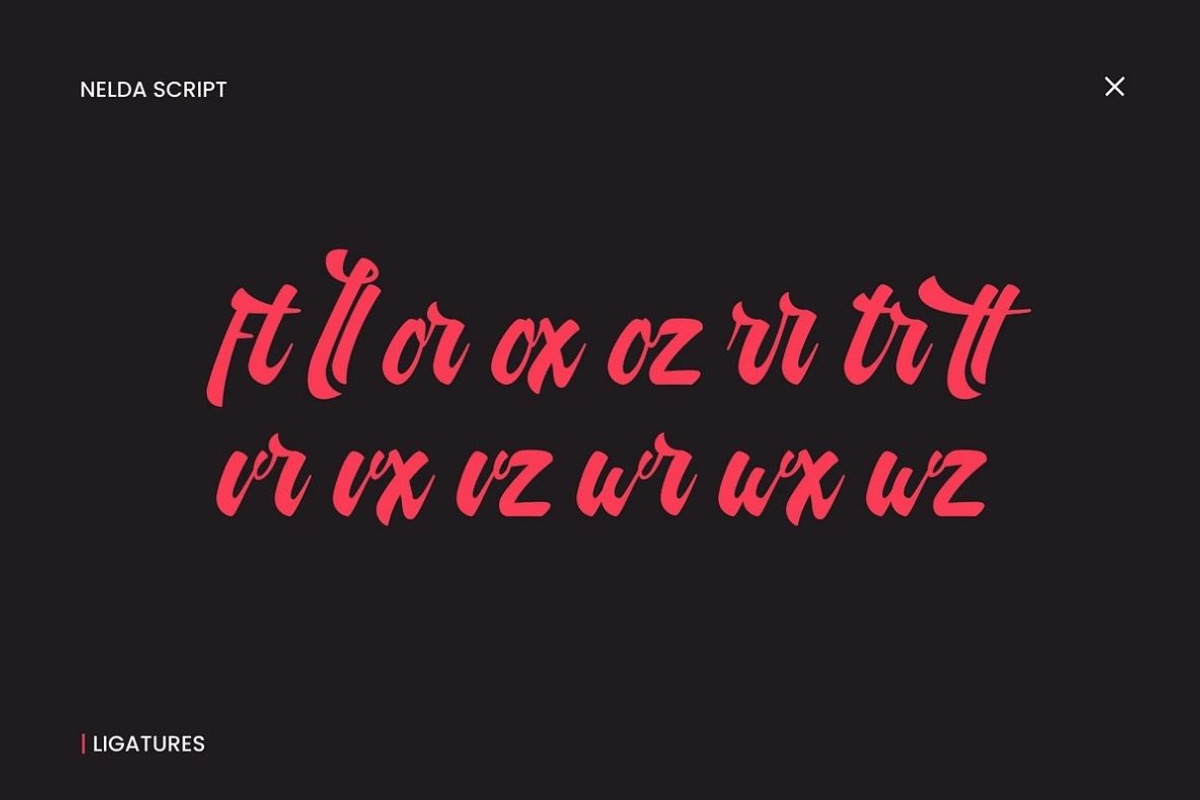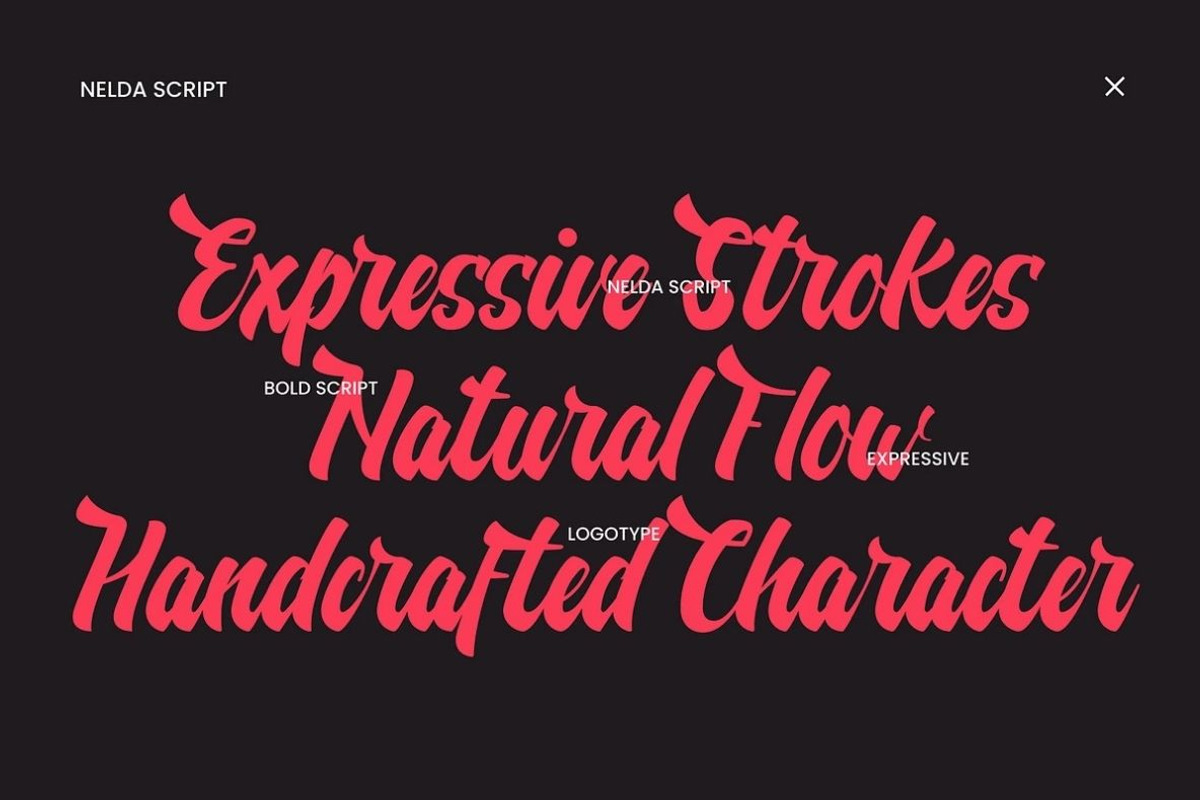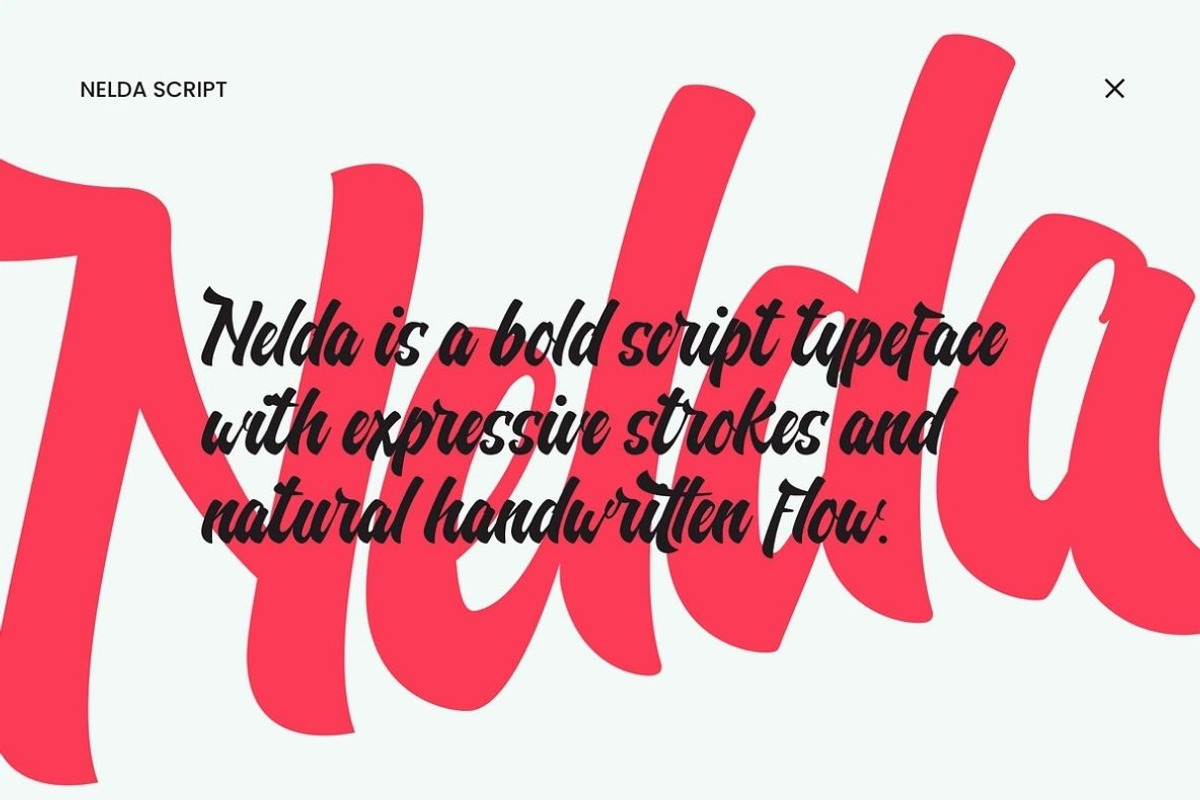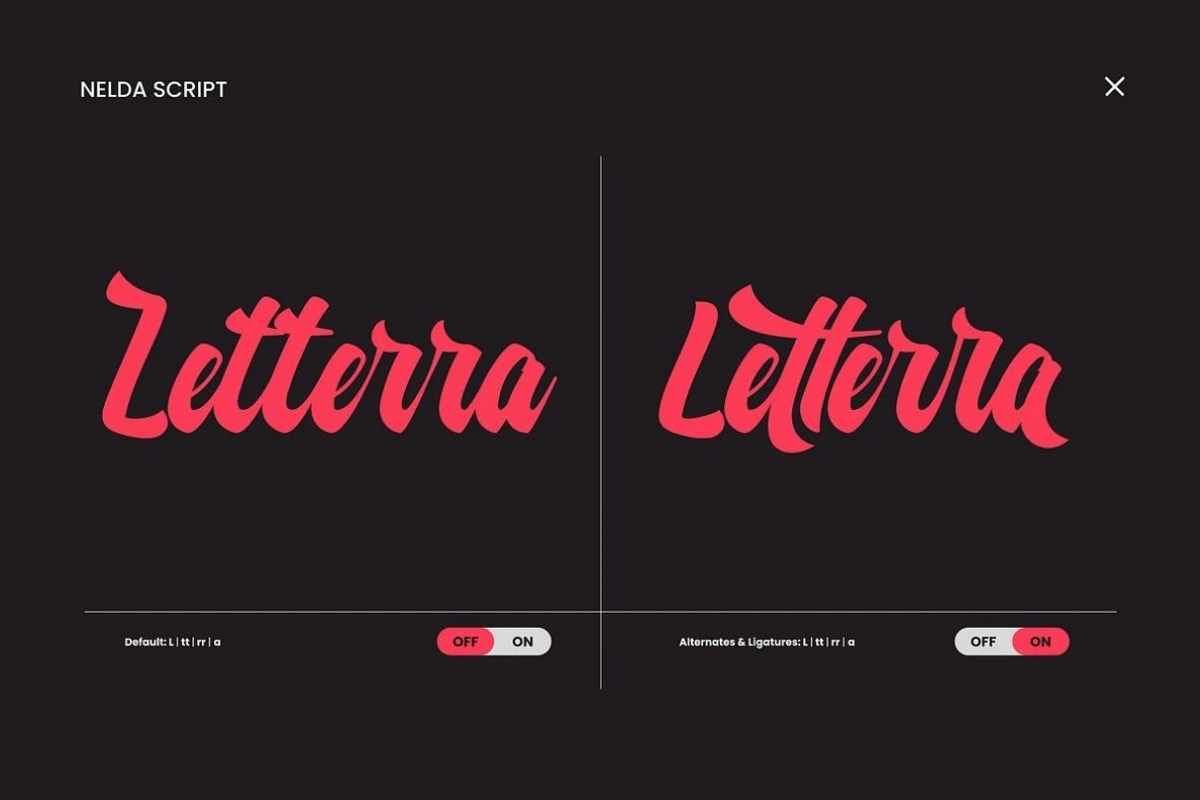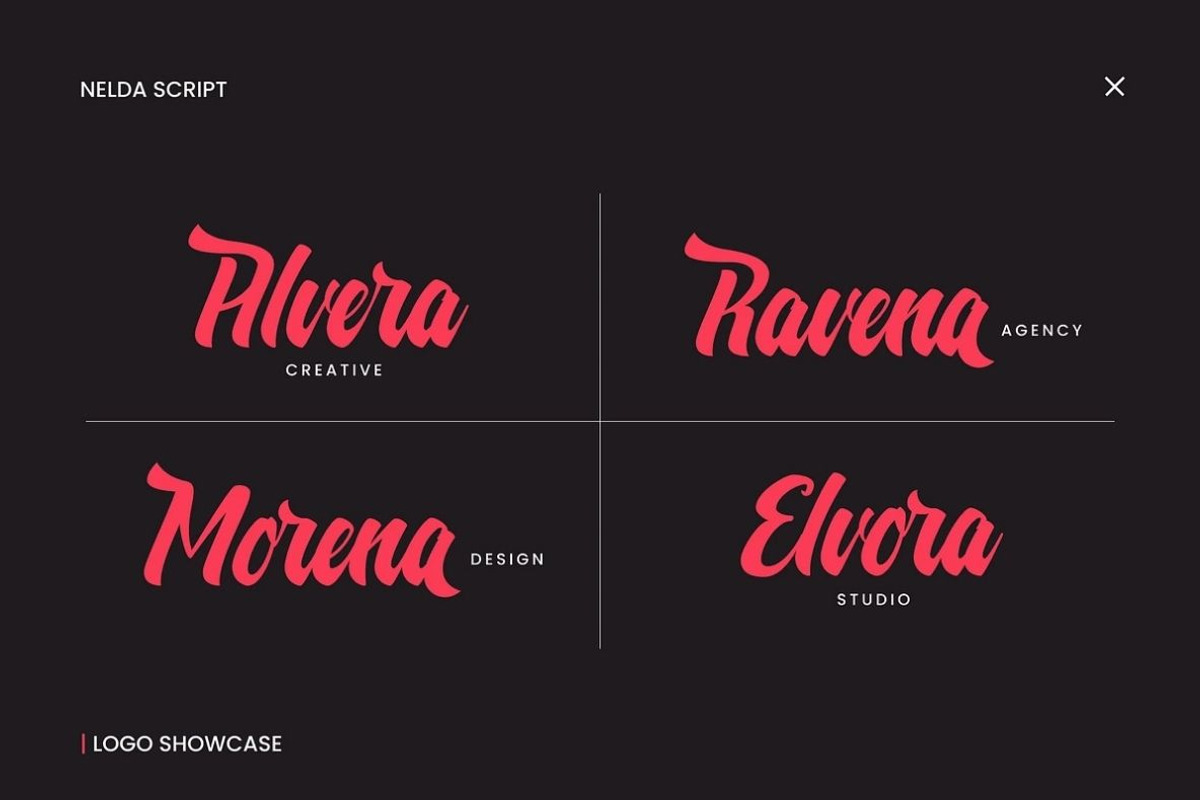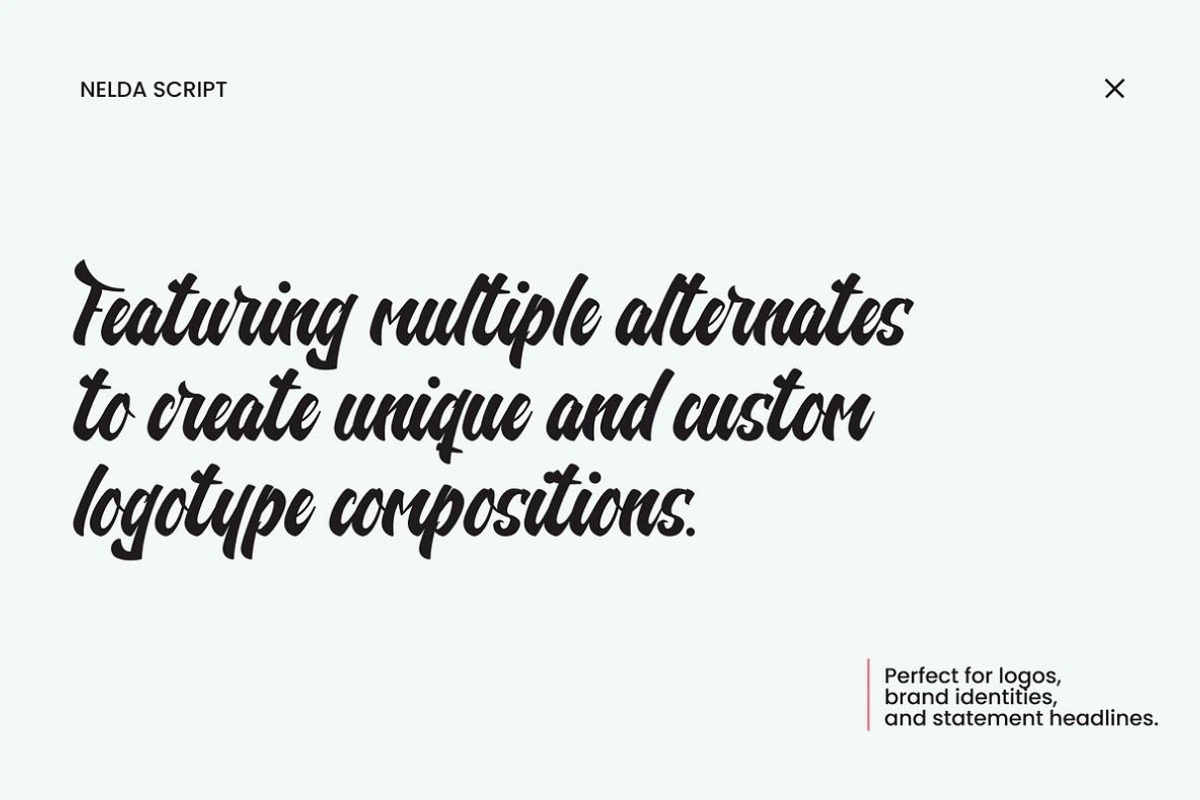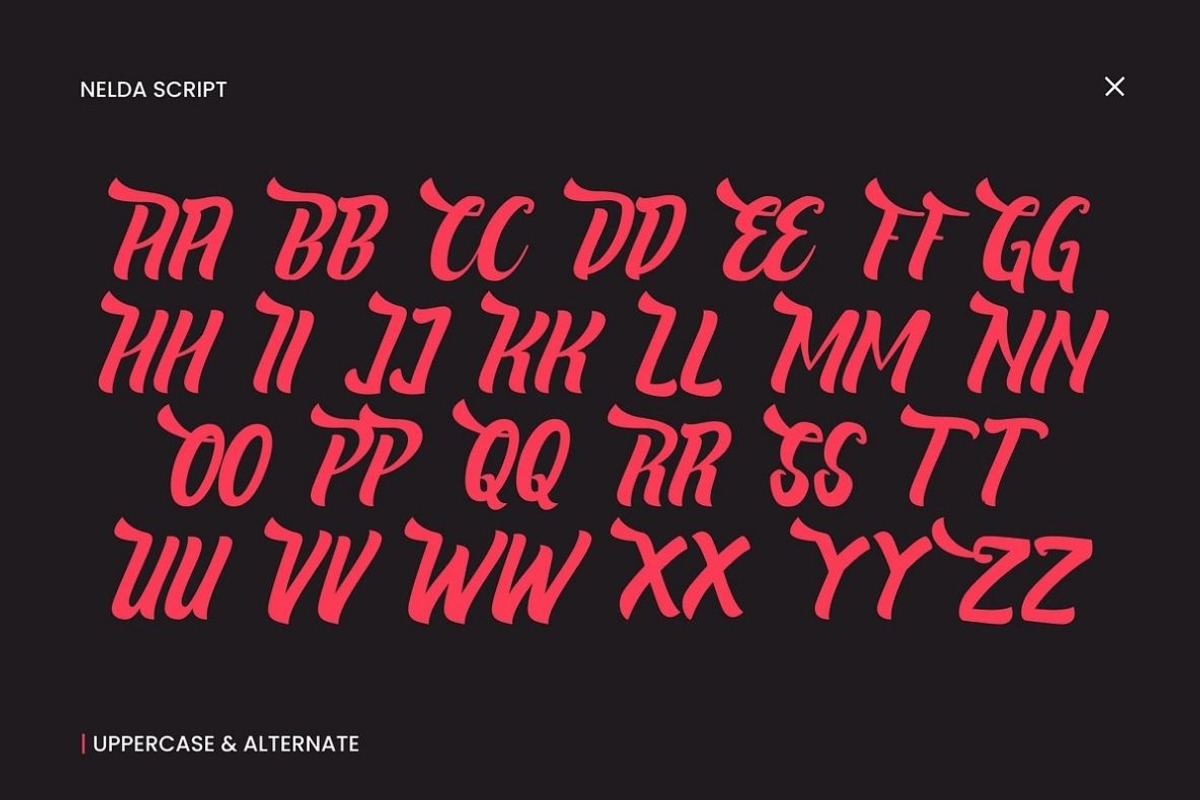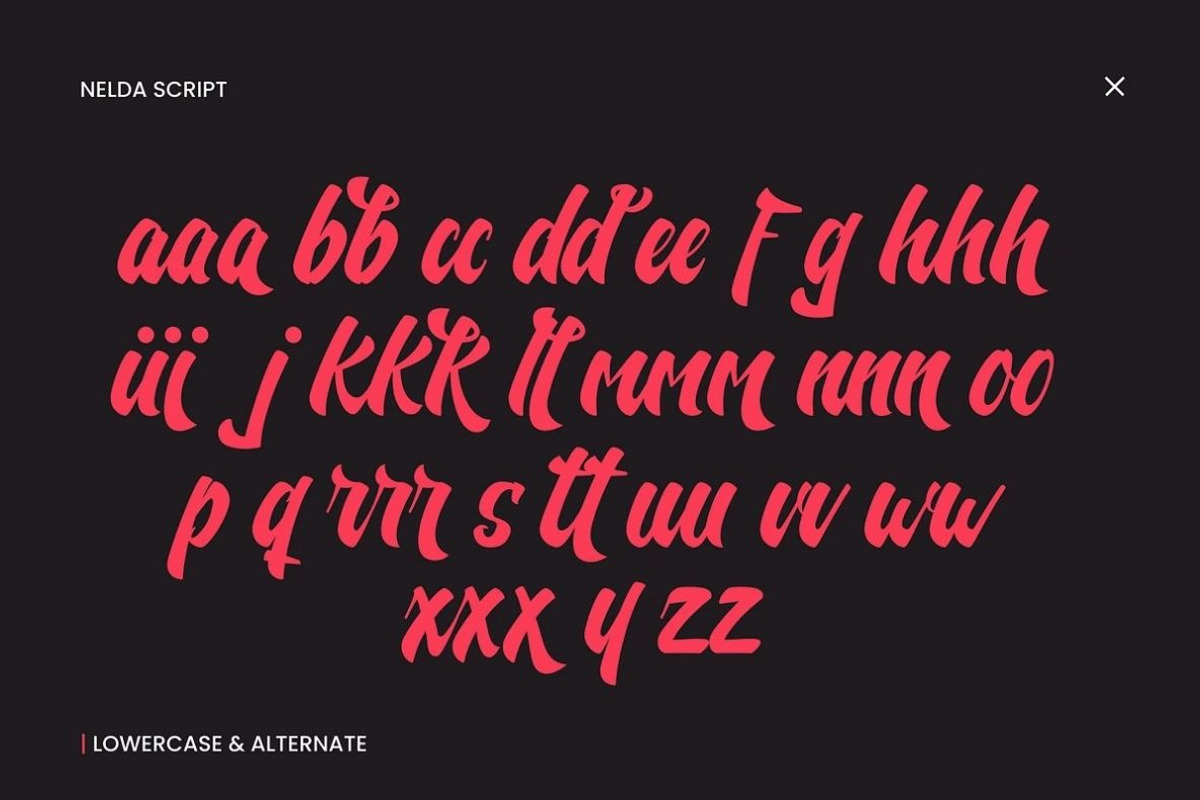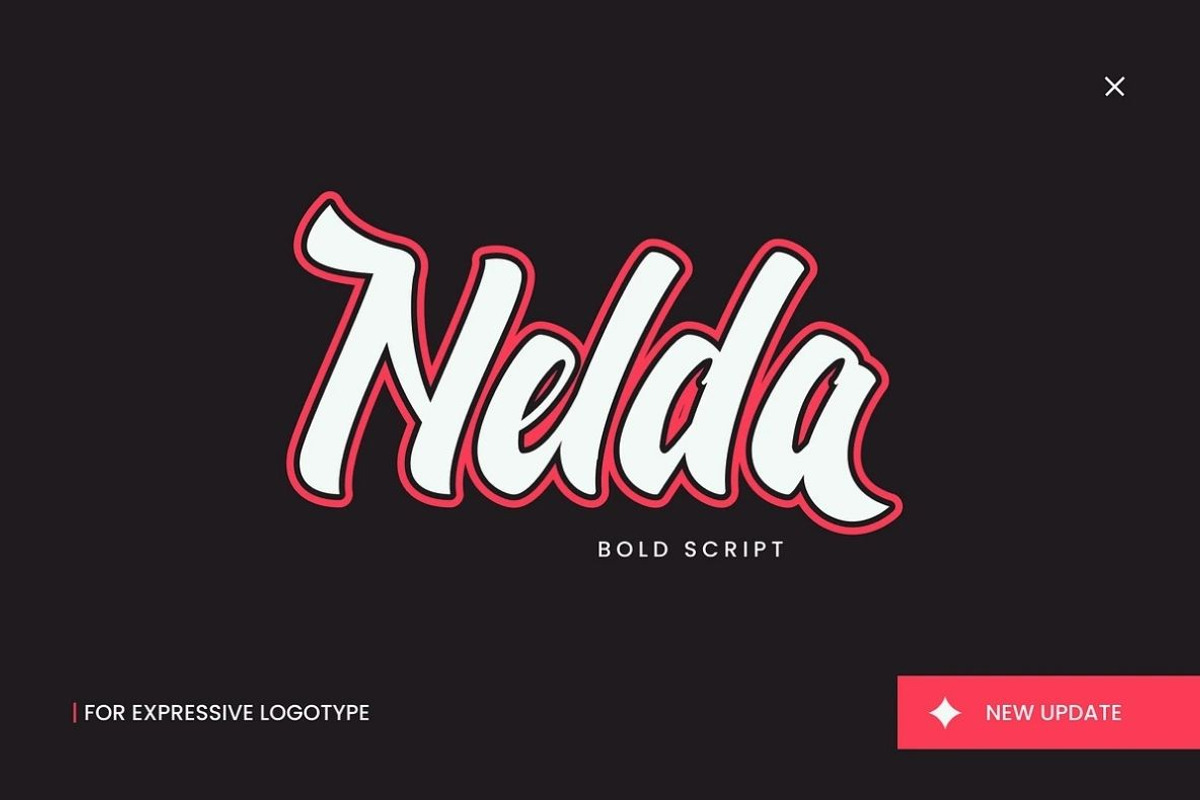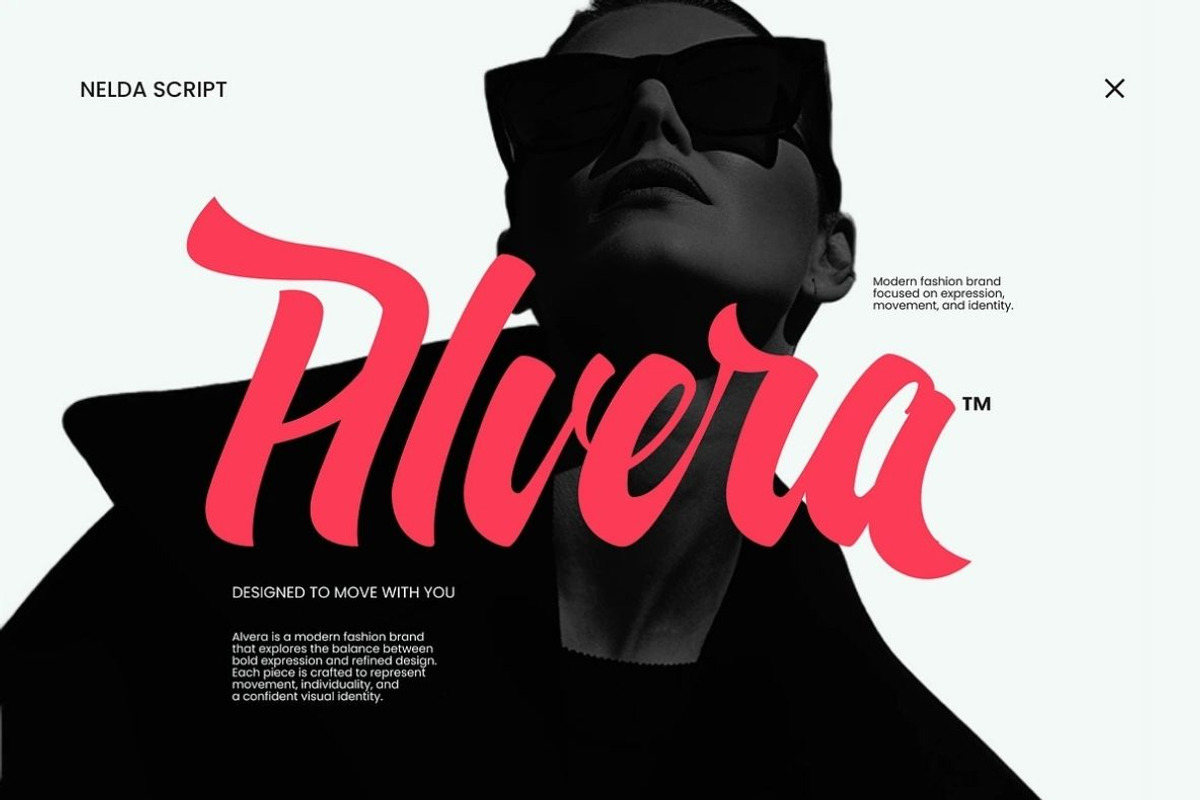
Nelda Logotype
Nelda – Modern Calligraphy Logotype Font
Create memorable logos with confidence using Nelda, a bold modern calligraphy typeface designed for branding that demands personality. Featuring smooth flowing strokes, expressive curves, and handcrafted details, Nelda is perfect for designers who want typography that feels both playful and professional.
Whether you're designing a boutique logo, café branding, cosmetic packaging, fashion labels, or social media graphics, Nelda delivers a clean handwritten style that instantly stands out. With an extensive collection of alternate characters and OpenType features, you can easily create unique lettering combinations that look custom-made.
Brand Identity
Cosmetic Branding
Café & Restaurant Logos
Apparel & Merchandise
Product Labels
Wedding Stationery
Posters & Headlines
Quotes & Typography
Signature Branding
311 Glyphs
131 Alternate Characters
Contextual Alternates
Stylistic Sets
Swash Characters